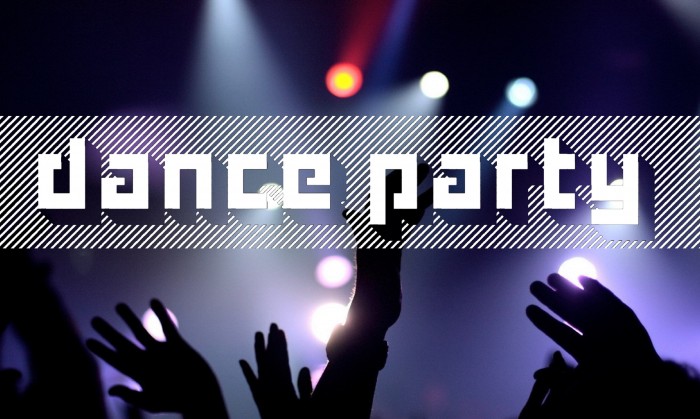
How amazing that the one thing that jumps out at you (the letters) is the one thing that does not exist in the bricks (white space).
Excellent.
Love this. Very cool. 10/10 as always:)
Fantastic work, elmoyenique! I love the combination of high contrast graphics, bold geometric characters, heavy drop shadow, and striped background! Not to mention (as thalamic already pointed out) the illusion of white letters on black, instead of the other way around! :-)
Very great font, but I noticed that the copyright symbol is a bit lower than the registered symbol.
@SG Fonts: Thanks a lot. And yes, the different position of © and ® is intentioned, right or wrong choice.